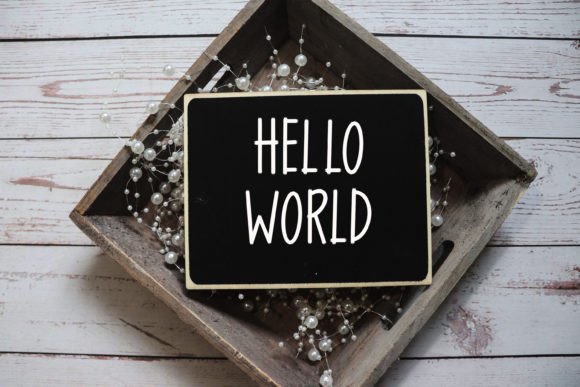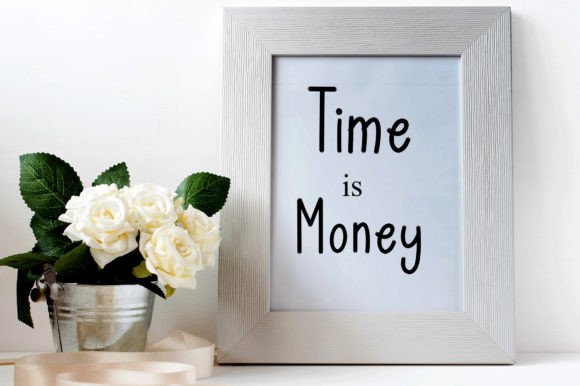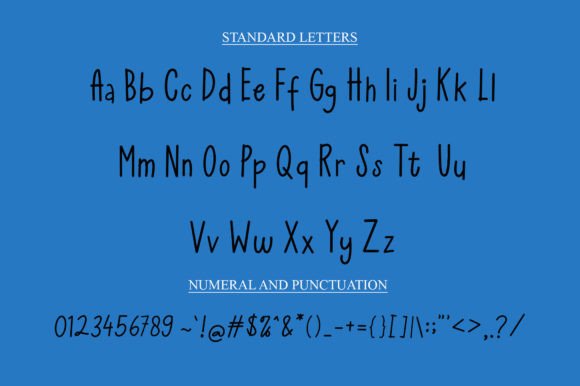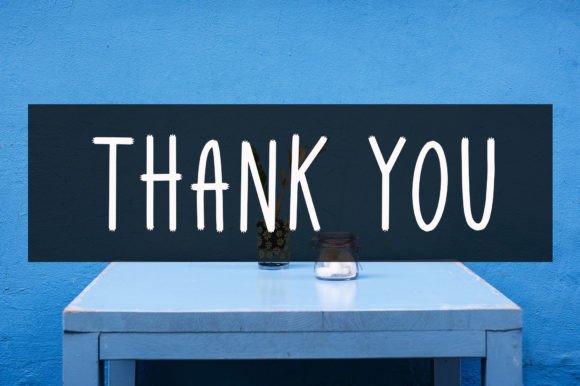
Hocus Pocus Font
About Hocus Pocus Font
“Hocus Pocus” is a delightful and whimsical handwritten font that adds a playful and friendly touch to your designs. This versatile font has a wide range of creative applications, making it an excellent choice for various design projects, from greeting cards to children’s crafts and beyond.
The font’s charm lies in its lighthearted and approachable style, which can bring a sense of fun and joy to your designs. “Hocus Pocus” is perfect for creating materials that need to appeal to a wide audience and convey a sense of warmth and friendliness.
One of the standout features of this font is its adaptability and versatility. Its friendly and handwritten appearance makes it suitable for a variety of creative projects, making it a reliable choice for designers looking to add a touch of whimsy to their work.
When you use “Hocus Pocus” in your designs, you can easily capture the spirit of playfulness and creativity. It’s a font that brings a sense of magic and imagination to your creative projects.
In summary, “Hocus Pocus” is a fun and friendly handwritten font that is perfect for a wide range of applications, including greeting cards, children’s crafts, and more. Its whimsical and approachable style adds a sweet and playful touch to your designs, making it a versatile choice for various creative projects. You can confidently use “Hocus Pocus” to infuse a sense of fun and charm into your next design.